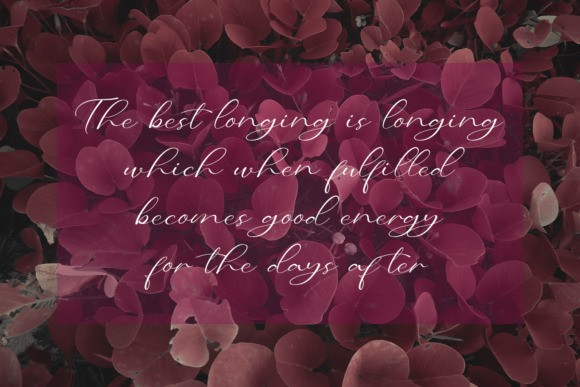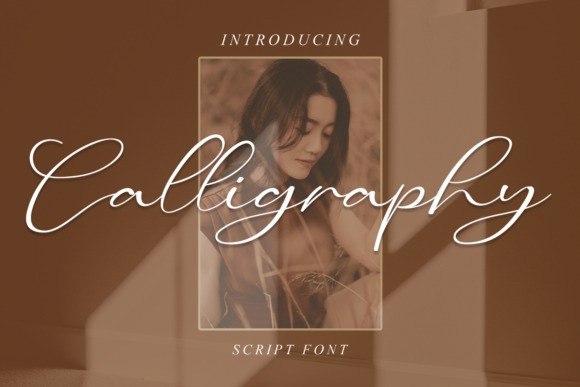
Calligraphy Romantic Font
Calligraphy Romantic Font, is a romantic and sweet calligraphy typeface with characters that dance along the baseline. It will add a luxury spark to any design project that you wish to create!